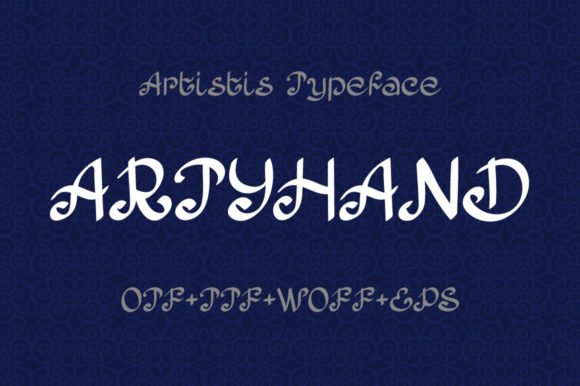
Discover the Magic of Artyhand Font
Have you ever been working on a design project, and you just can’t seem to find the right font to bring it all together? You’ve tried endless combinations, but nothing seems to capture the essence of your vision. That’s where Artyhand Font comes in – a whimsical script font that’s sure to transport your creations to a world of elegance and charm.
With its relaxed theme and lovely style, Artyhand Font is the perfect addition to any designer’s library. Whether you’re working on a wedding invitation, a children’s book, or a social media campaign, this font has the potential to elevate your design and leave a lasting impression on your audience. What sets Artyhand Font apart is its versatility, making it an invaluable asset for designers of all levels.
Artyhand Font Key Features
- Font Family: Artyhand comes in 3 different font families: Regular, Bold, and Italic, providing versatility for various design applications.
- Character Set: Supports a wide range of languages, including Latin, Cyrillic, and Greek alphabets, making it suitable for international projects.
- Unique Characteristics: Artyhand features a distinctive, hand-painted style with subtle brush strokes and texture, adding a touch of elegance and sophistication to any design.
Artyhand Font Review
Overall, I’d say that Artyhand Font is a solid choice for designers looking for a unique, hand-drawn feel. Here are some things that work well:
- ✨ Uniqueness: Artyhand Font is one of a kind, offering a style that’s hard to find elsewhere.
- ✨ Expressiveness: The font is perfect for creative projects where you want to convey emotion and personality.
- ✨ Customizability: Artyhand Font comes in a range of weights and styles, giving you the flexibility to tailor it to your project’s needs.
- ⚠️ Legibility: At smaller sizes, Artyhand Font can be a bit hard to read, which might be a concern for projects where clarity is paramount.
- ⚠️ Limited character set: The font’s character set is not as extensive as some other fonts, which could be a problem if you need to typeset in multiple languages.
Overall, I think Artyhand Font is a great choice for designers who want to add some personality to their projects. Just be mindful of its limitations and use it thoughtfully. With a little creativity, Artyhand Font can be a real showstopper.
The Artyhand Font is ideal for:
- Party and event branding
- Stationery and business cards
- Artistic and creative projects